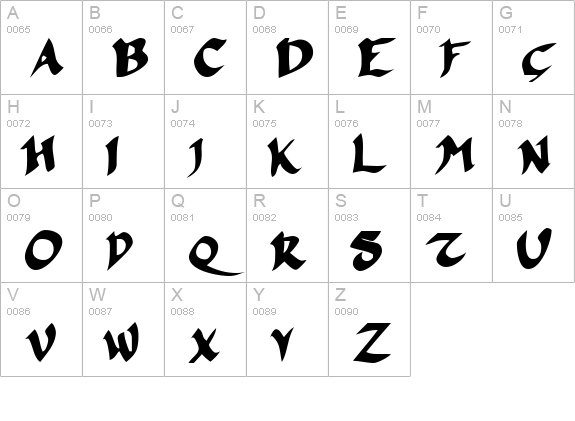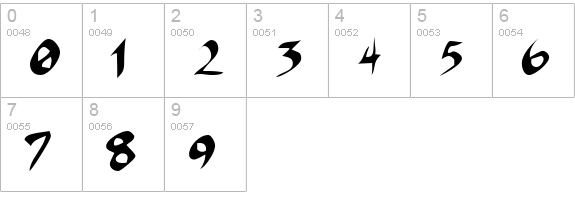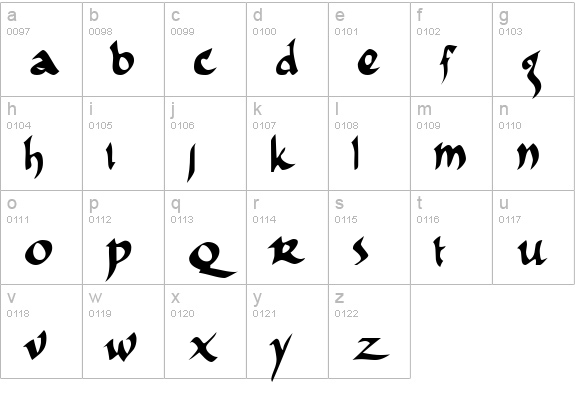
FSO incompetent apprentice Font Details
The FSO Incompetent Apprentice font is a whimsical and quirky typeface that exudes charm and playfulness. With its irregular strokes and unique letter shapes, this font is perfect for adding a touch of fun to your design projects. Whether you're creating posters, greeting cards, or social media graphics, the FSO Incompetent Apprentice font is sure to make a statement. Best of all, this font is available for free download at FontsMarket.com. So go ahead and unleash your creativity with this delightful and free-spirited typeface. Add a touch of whimsy to your designs with the FSO Incompetent Apprentice font today!